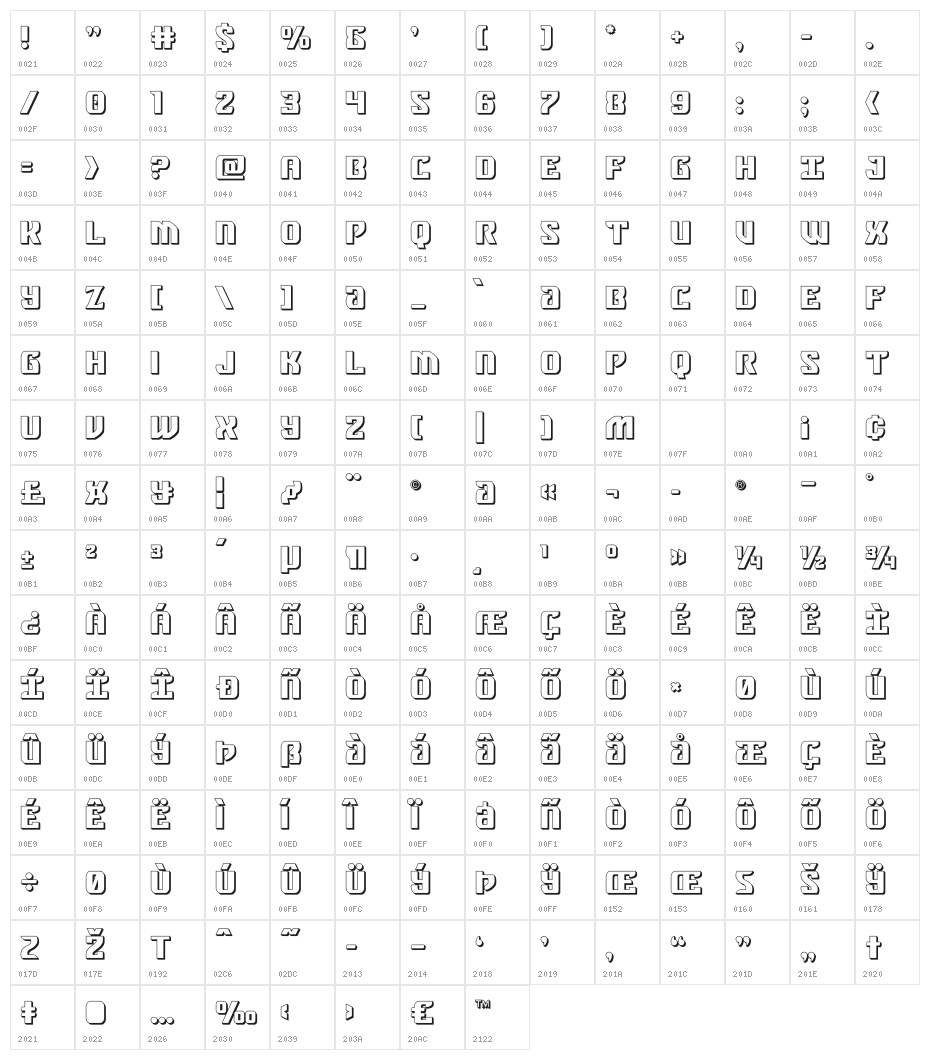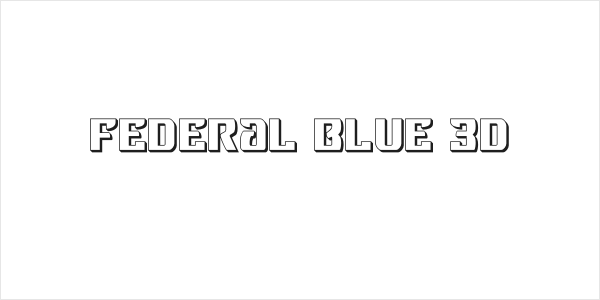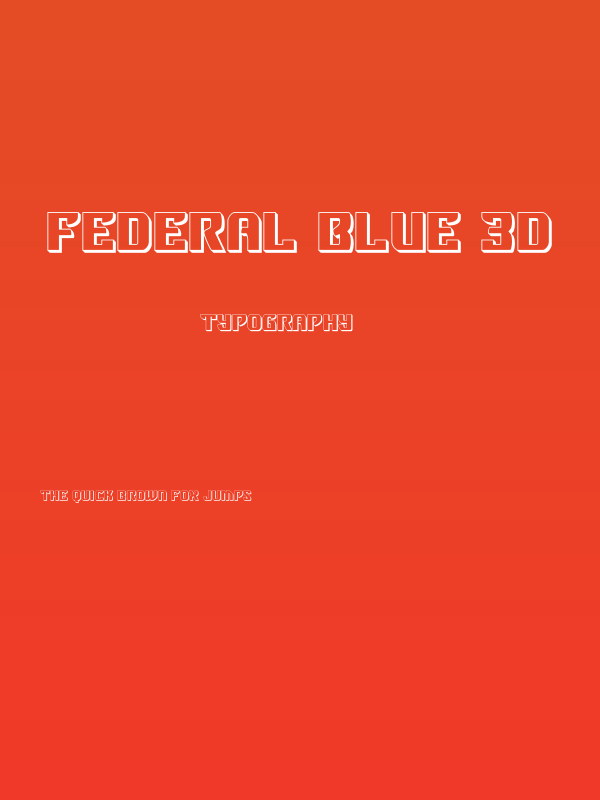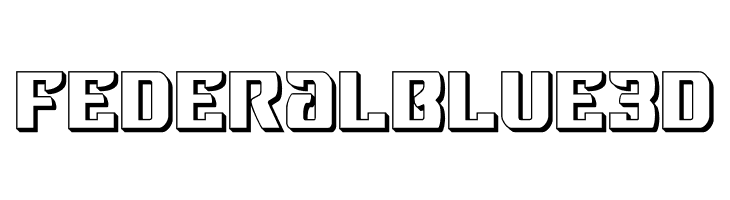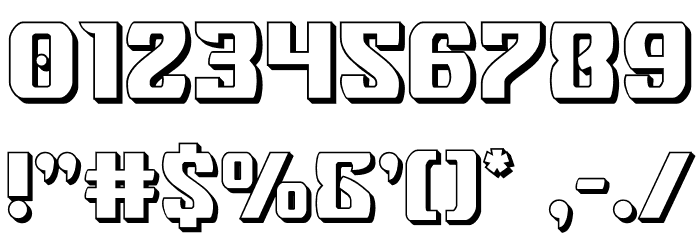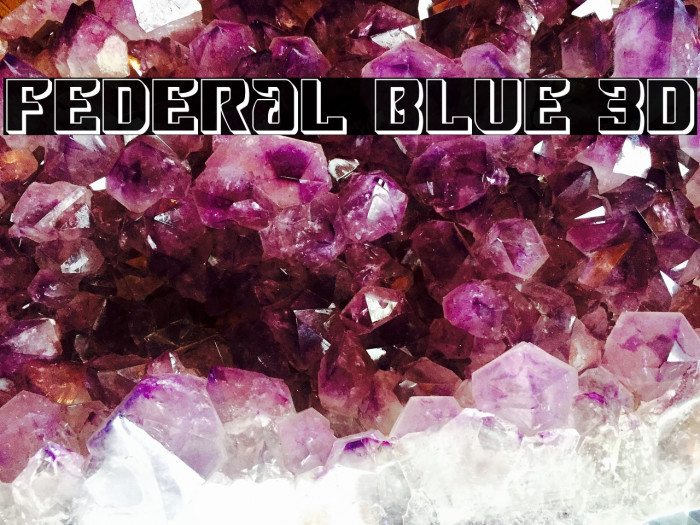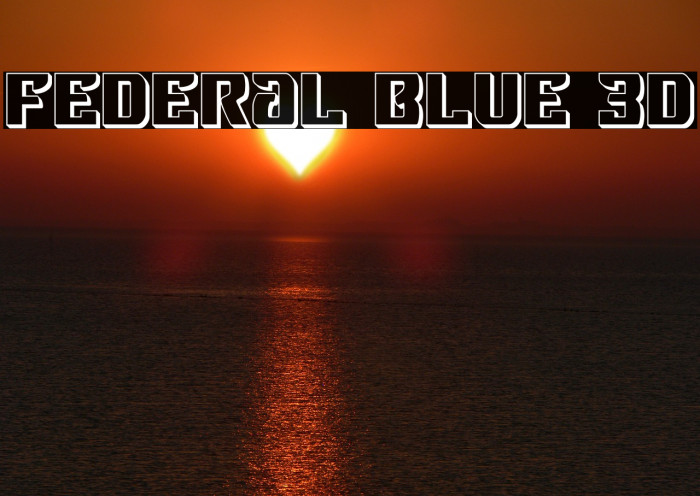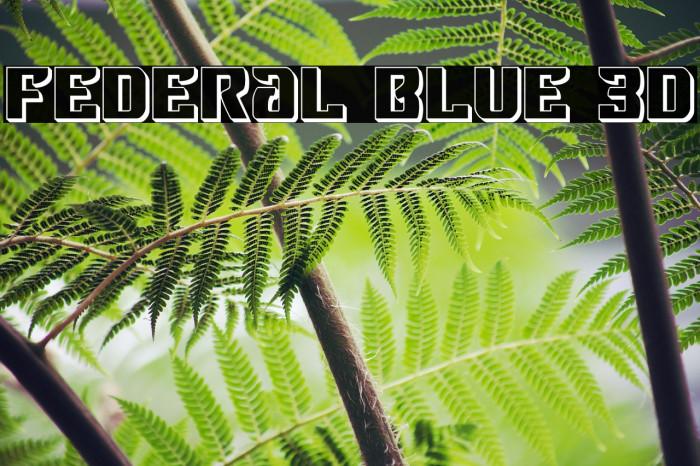
Federal Blue 3D Font
Federal Blue 3D Description
This font features a bold, three-dimensional design with a strong, geometric structure. The characters are outlined, giving them a distinct, blocky appearance that stands out. The uppercase and lowercase letters maintain a consistent style, with sharp angles and clean lines. The numbers and special characters follow the same design principles, ensuring uniformity across the entire set. This font's 3D effect is achieved through a clever use of shading and perspective, adding depth and visual interest. The overall look is modern and eye-catching, making it suitable for projects that require a bold statement.
| Proposed Projects | Ideal for headlines, posters, logos, and any design that requires a striking, modern aesthetic. |